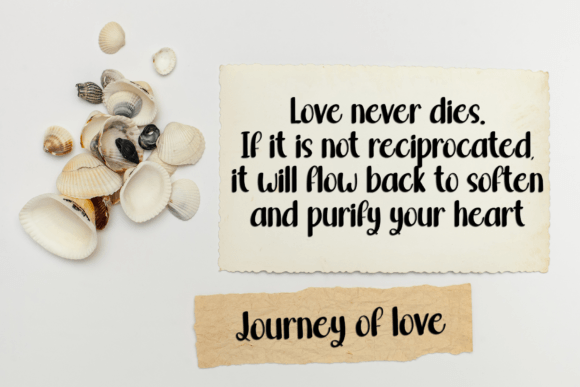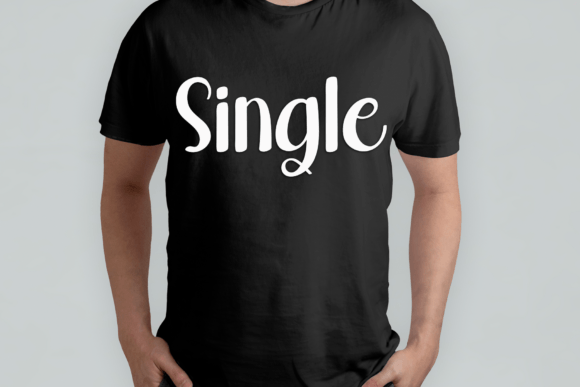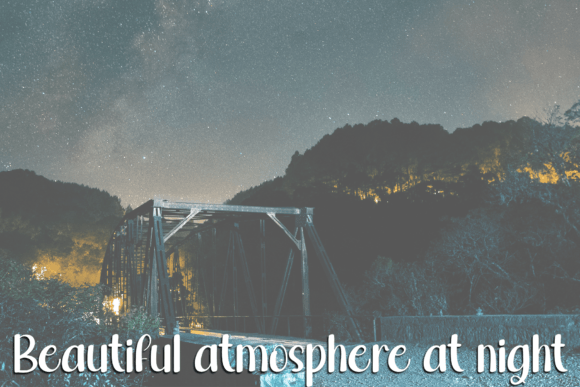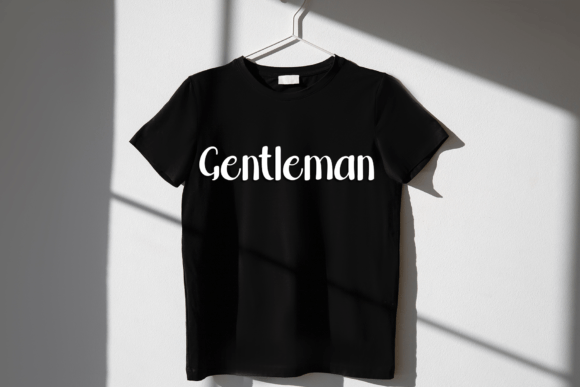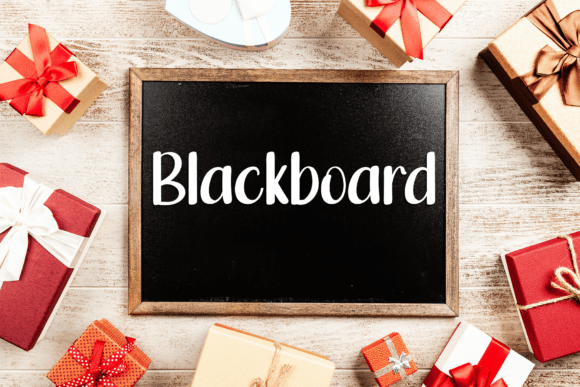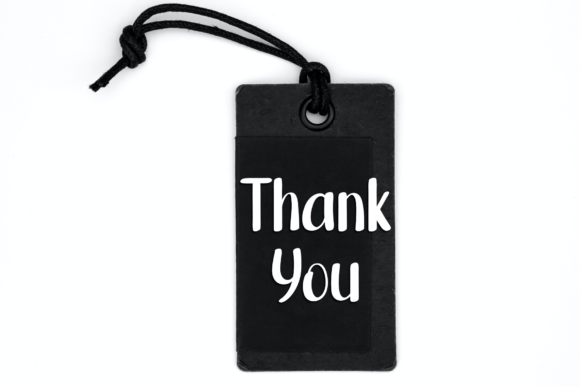
Discover the Thrill of Adventure January Font
Do you remember that moment when a single font choice transformed your entire design project? You stared at the blank page, unsure of where to begin, until that perfect font caught your eye. The right font can breathe life into your ideas, making them more engaging and memorable.
Enter the Adventure January Font, a charming and versatile handwritten font designed to elevate your creative projects. This simple yet playful font is perfect for a wide range of designs, from social media graphics to blog posts and even book covers. Whether you’re a seasoned designer or a hobbyist, the Adventure January Font is an invaluable addition to your toolkit.
With its unique charm and adaptability, the Adventure January Font is sure to become your go-to choice for any design project that requires a touch of adventure and whimsy.
Key Features of Adventure January Font
• Font Family: Adventure January Font is a unique, handwritten font that includes a range of characters, including uppercase and lowercase letters, numbers, and punctuation marks.
• Unique Characteristics: The font’s distinctive handwritten style and varied letterforms make it ideal for adding a touch of personality to designs, while its legibility ensures it remains easy to read.
Design Review: Adventure January Font
Overall, I think the Adventure January Font has some great qualities that make it stand out. ✨ One of the things I like is the playful, handwritten feel it gives to text. It’s perfect for projects that need a touch of whimsy and personality. The font also has a great range of weights and styles, making it versatile for use in a variety of contexts.
• ✨ The unique, hand-drawn aesthetic of the font makes it perfect for creative projects like children’s books, menus, or posters.
• ✨ The font’s varying weights and styles allow for a lot of creative flexibility, making it suitable for a wide range of applications.
However, there are a few limitations to consider. ⚠️ The font’s informal feel may not be suitable for more formal projects, like business reports or academic papers. Additionally, the font’s irregularities can make it difficult to read in certain contexts, like small text sizes or narrow columns.
• ⚠️ The font’s informal feel may not be suitable for more formal projects.
• ⚠️ The font’s irregularities can make it difficult to read in certain contexts.
Overall, I think the Adventure January Font is a great choice for projects that need a playful, creative touch. While it may not be suitable for all types of projects, it’s definitely worth considering for those that need a little bit of whimsy and personality.
To get the most out of the Adventure January font, use it to create bold and eye-catching headlines. The font’s unique design makes it perfect for outdoor and adventure-themed designs. You can also use it to add a touch of personality to your branding and marketing materials.
Common Use Cases for Adventure January Font
The Adventure January font is perfect for outdoor and adventure-themed designs, such as hiking and camping guides, travel brochures, and outdoor apparel brands. You can also use it to create bold and eye-catching headlines for sports and fitness brands, as well as for events and festivals.